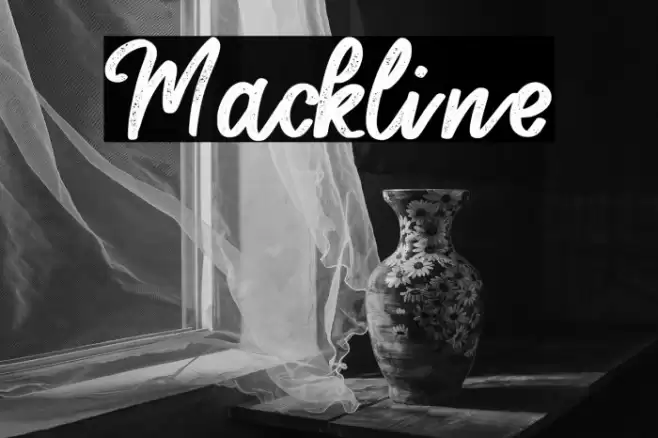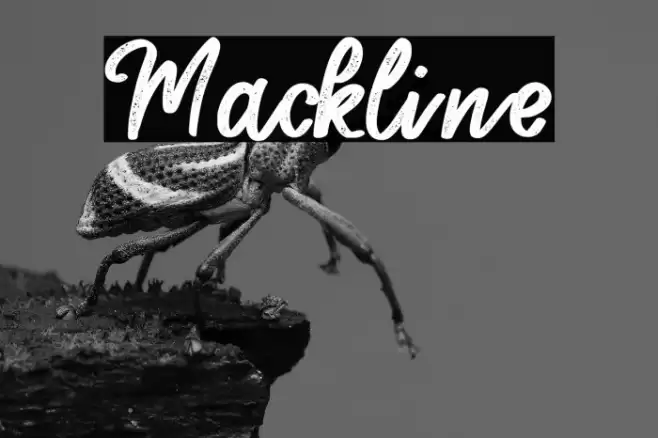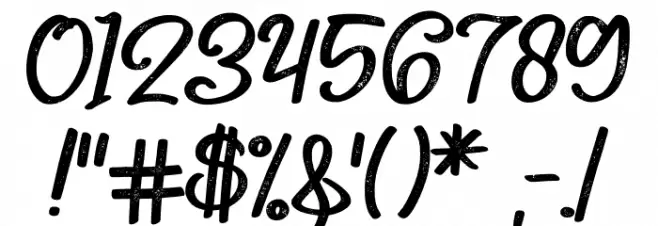
Mackline Font
Mackline Description
This font features a bold, expressive script style with a textured appearance, reminiscent of hand-drawn lettering. The uppercase letters are elegantly curved, with a consistent flow that adds a sense of movement and dynamism. Lowercase letters maintain a similar style, with some characters extending below the baseline, enhancing the handwritten feel. The numbers are equally bold and maintain the same textured look, ensuring consistency across all characters. Special characters are included, matching the overall aesthetic with their bold and textured design. This font is ideal for projects that require a personal, artistic touch.
A bold, textured script font with a hand-drawn appearance from Uncategorized fonts.
- Proposed Projects: Ideal for branding, invitations, posters, and any project needing a personal, artistic touch.
- Use Case: Logos, Headlines, Invitations